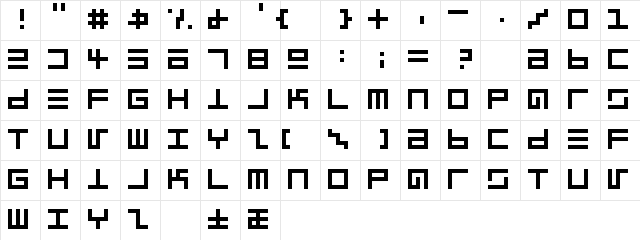
Epps Evans Regular Free Font
Epps Evans Regular
Design Context for Epps Evans
Epps Evans is a composed and adaptable typeface that performs quietly and consistently across a wide range of design contexts.